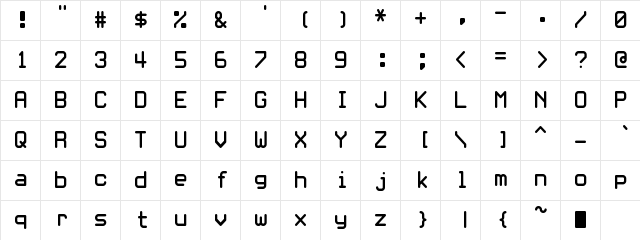
New Regular
| Foundry | I Shot the Serif |
| Designer | Matthew Welch |
Design Context for New Typeface
New is a composed and adaptable typeface that performs quietly and consistently across a wide range of design contexts.